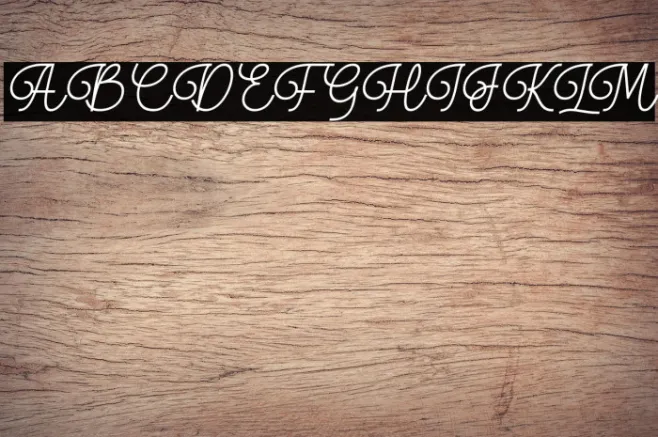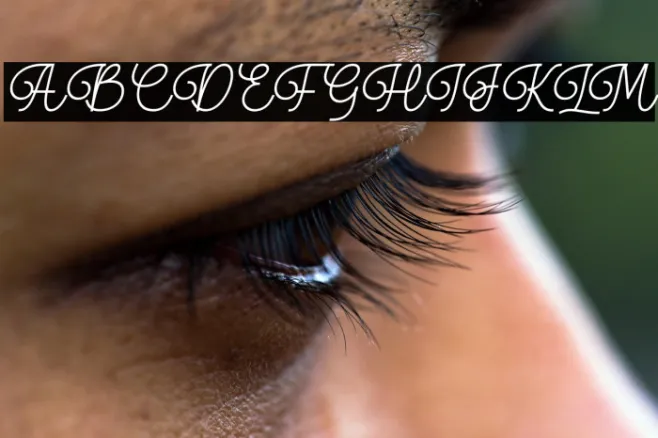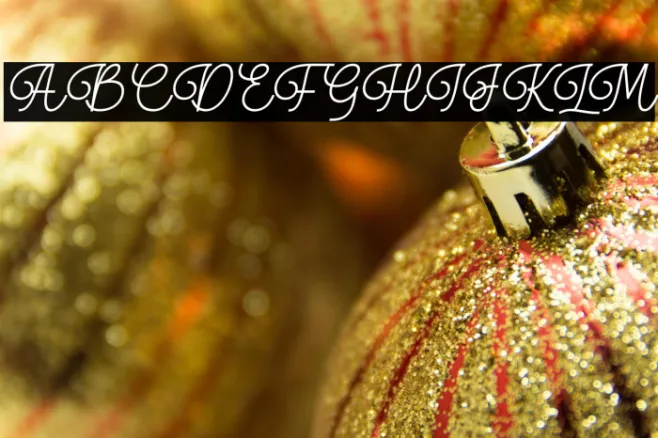
Fancy Matter personal use Font
Fancy Matter personal use Description
This font features an elegant and flowing script style, characterized by its smooth, connected letters that mimic the fluidity of cursive handwriting. The uppercase letters are ornate, with intricate loops and swirls, while the lowercase letters maintain a more streamlined appearance, enhancing readability. The font exudes a sense of sophistication and grace, making it ideal for formal invitations, branding, and decorative purposes. Its delicate strokes and balanced proportions contribute to its overall aesthetic appeal.